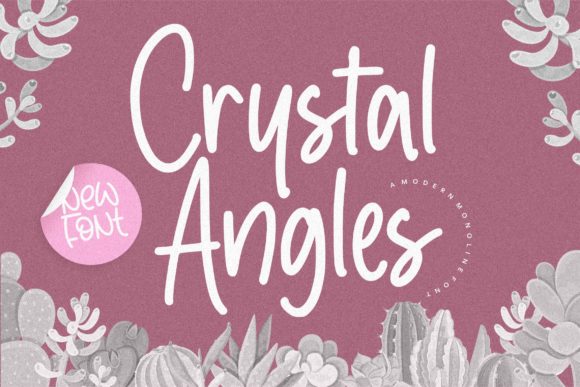
Experience the allure of Crystal Angles Font, an enchanting script font that exudes elegance and sophistication. Its delicate curves and graceful strokes evoke a sense of effortless beauty that is sure to leave a lasting impression. Whether you're creating product packaging that demands attention, crafting branding projects that reflect your unique style, or designing social media posts that captivate your audience, Crystal Angles Font is the perfect choice for any project that calls for a touch of charm and distinctiveness.
With its versatility and timeless appeal, Crystal Angles Font effortlessly adapts to a wide range of creative endeavors. Its ethereal nature lends itself beautifully to wedding designs, adding an air of romance and enchantment to your special day. Let your words dance across the page, infused with the exquisite charm of this remarkable font.
Crafted by the talented hand of Balpirick, Crystal Angles Font embodies a harmonious blend of artistry and functionality. Its meticulous design ensures that each letter flows seamlessly into the next, creating a visual symphony that both pleases the eye and enhances the impact of your message. Whether you're a seasoned designer or just starting your creative journey, this font is an indispensable tool that will elevate your projects to new heights of creativity.
Step into a world of creative possibilities with Crystal Angles Font. Let the mesmerizing handwritten characters transport you to a realm where imagination knows no bounds. With its versatility and timeless allure, this font is the perfect companion for your artistic expressions. Embrace the power of beauty and distinctiveness, and watch your words come alive, leaving an indelible mark on the hearts and minds of your audience.